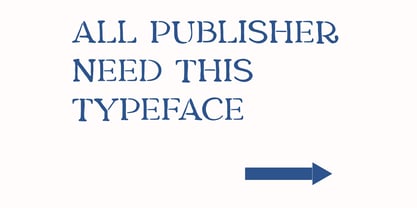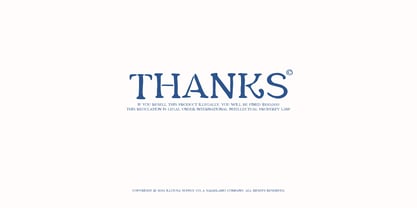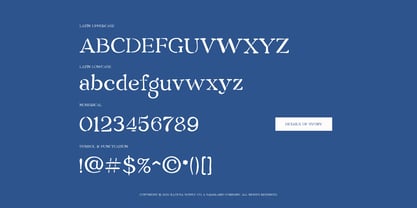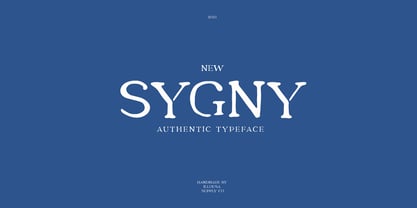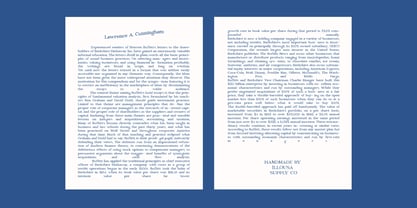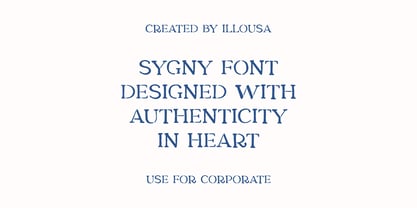
SCC Sygny
Die Schriftfamilie SCC Sygny wurde von Ilham Afrora entworfen und von Illousa Supply Co veröffentlicht. SCC Sygny enthält 1 Stile. Mehr über diese Familie
Sygny: The Authentic Hand-Drawn Serif Sygny is an "Authentic Typeface" that beautifully blends the elegance of classic serif structures with the warmth of a genuine human touch. Released by Illousa Supply Co. in 2024, this font is crafted for designers seeking a balance between professional aesthetics and unique organic character. The core strength of Sygny lies in its fluid, hand-drawn lines, which provide a personal and exclusive feel to every word you compose. More than just a digital tool, this font is a work of art created with dedication to bring your visual identity to life. Key Features: Authentic Design: Features a strong serif anatomy while maintaining subtle, handmade textures. Handmade Quality: Meticulously crafted by Illousa Supply Co. to ensure every curve feels natural. Timeless Aesthetic: A timeless style suitable for both modern and classic design trends. Perfect For: Branding & Identity: Ideal for boutique logos, creative studios, or luxury lifestyle brands. Editorial: Perfect for magazine headers, book covers, and elegant article layouts. Stationery: Designed for premium wedding invitations, greeting cards, and business cards. Social Media: Great for aesthetic quote typography or headlines for Instagram and Pinterest.